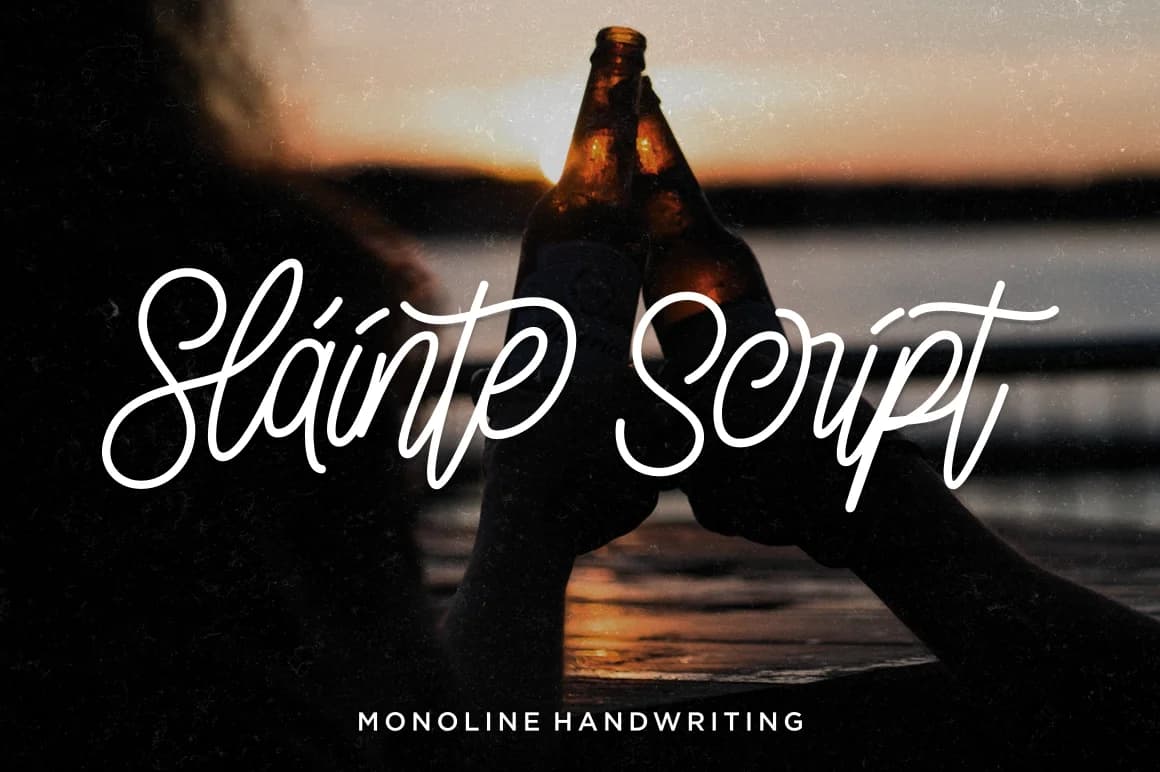
Sláinte Font by Fontdation is a handwritten script typeface with flowing, organic letterforms that bring genuine warmth to contemporary projects. The typeface captures the spontaneous quality of pen-on-paper lettering while maintaining the polish and consistency required for professional applications. This script font excels in branding work for artisan businesses, where its authentic character creates distinctive visual identity. Designers turn to it for wedding invitation suites that demand genuine emotional resonance rather than formulaic elegance, and it translates beautifully to greeting card layouts requiring sincerity and personal touch. The fluid strokes suit cosmetic and artisanal skincare packaging equally well, where hand-crafted visual appeal drives customer perception and brand loyalty. Custom event signage and small-batch product labels benefit from the typeface's natural, approachable energy, qualities that appeal to audiences seeking genuine alternatives to mass-produced aesthetics. The font offers consistent letterform structure and character spacing that support both bold headlines and extended text passages without sacrificing legibility. Extended character support opens possibilities for international applications and multilingual design work. Whether your project calls for luxury event collateral or grassroots DIY materials, this script font delivers personality and authenticity without demanding extensive design refinement. Grab the font from Creative Fabrica and see how it works for your next design.
Sláinte Font is a script font that shines as a display or heading face. Pair it with a clean sans-serif or serif font for body text — the contrast creates a clear hierarchy while the two styles stay balanced and easy to read.
Sláinte Font
by Fontdation